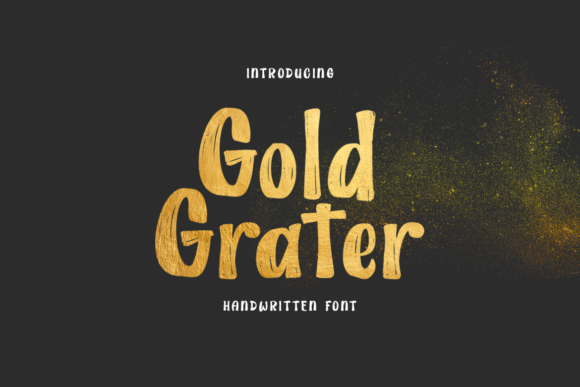
Welcome to the world of Gold Grater, a font so captivating it will enchant your designs like a magical spell. Dive into its enchanting display style, where every letter dances with an undeniable visual charm. Unleash your creativity with this font, and prepare to witness the transformation of your creations into captivating masterpieces.
Designed with precision and flair, Gold Grater effortlessly blends elegance with modernity. Each letter carries a unique essence, meticulously crafted to evoke emotions and leave a lasting impression on your audience. Whether you're designing a T-shirt that radiates individuality or crafting a poster that demands attention, Gold Grater is your ultimate creative companion.
With Gold Grater, your designs will transcend the ordinary and captivate the hearts of all who encounter them. Imagine your T-shirts becoming conversation starters, your posters becoming works of art, and your digital creations standing out from the crowd like radiant stars in a night sky. Let Gold Grater be your muse, and experience the joy of creating designs that resonate with both depth and beauty.
So why settle for ordinary fonts when you can embrace the extraordinary? Embrace Gold Grater today, and embark on a creative journey where your designs will flourish and captivate like never before.